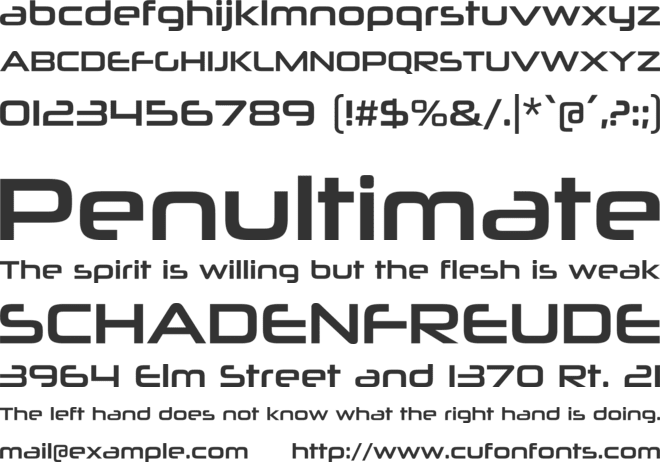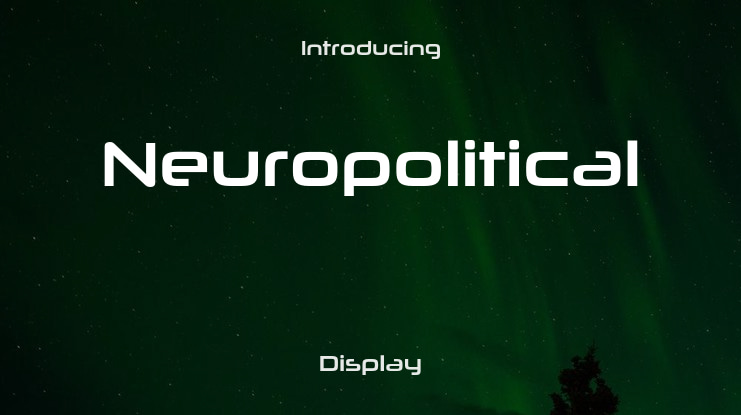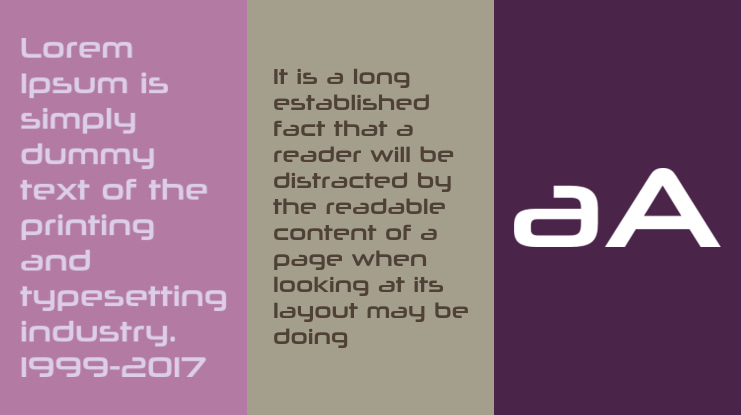
Neuropolitical combines rounded-square construction with open technical details for an approachable product voice. It works for consumer devices, connected fitness, home energy, robotics, interfaces, medical technology, mobility systems, packaging, and model names that should feel advanced but not militarized.